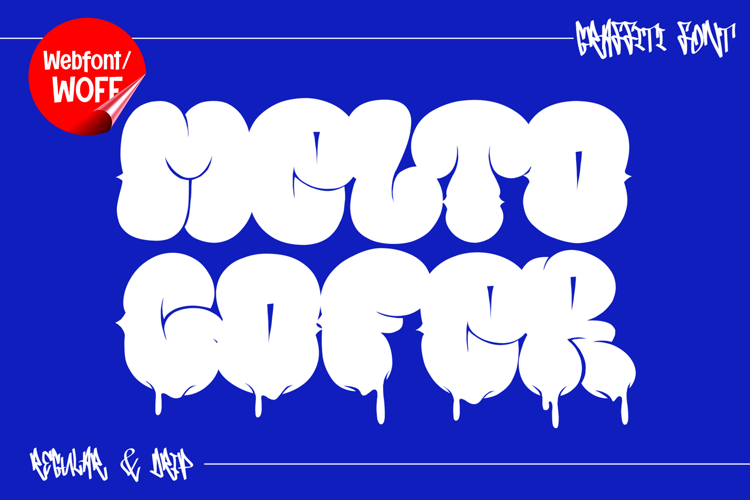
Melto Gofer | Webfont Bubble Graffiti for Websites
Melto Gofer Webfont is a bold and playful graffiti typeface designed to bring urban energy into digital environments. Inspired by bubble graffiti and throw-up lettering styles, this font combines rounded shapes with expressive dripping effects to create a strong visual presence for modern websites.
In web design, typography plays a crucial role in capturing attention and guiding user interaction. Melto Gofer is designed as a display webfont, making it ideal for headlines, hero sections, landing pages, banners, and promotional content. Its bold bubble forms ensure high visibility, while the dripping details add artistic character.
This webfont includes two styles: Regular and Dripping. The Regular style offers clean bubble letterforms that maintain readability and structure. The Dripping style introduces paint-like effects that create a more expressive and dynamic look. Designers can use these styles separately or combine them for layered typography.
The font is highly suitable for creative websites, streetwear brands, music platforms, gaming pages, and digital campaigns. Its playful and urban style helps create a strong visual identity and makes content more engaging.
One of the key strengths of Melto Gofer in web design is its ability to function as a focal point. When used in headlines, it naturally draws attention and enhances visual hierarchy. This makes it effective for call-to-action sections and promotional messaging.
Despite its bold style, the font maintains readability at display sizes. Designers can pair it with simple fonts for body text to create a balanced layout and improve user experience.
The dripping effect adds depth and motion to web layouts. When combined with animations or interactive elements, the font creates a more immersive and engaging browsing experience.
Overall, Melto Gofer Webfont transforms typography into a bold visual statement. It brings the spirit of graffiti into digital design, helping websites stand out and communicate strong identity.